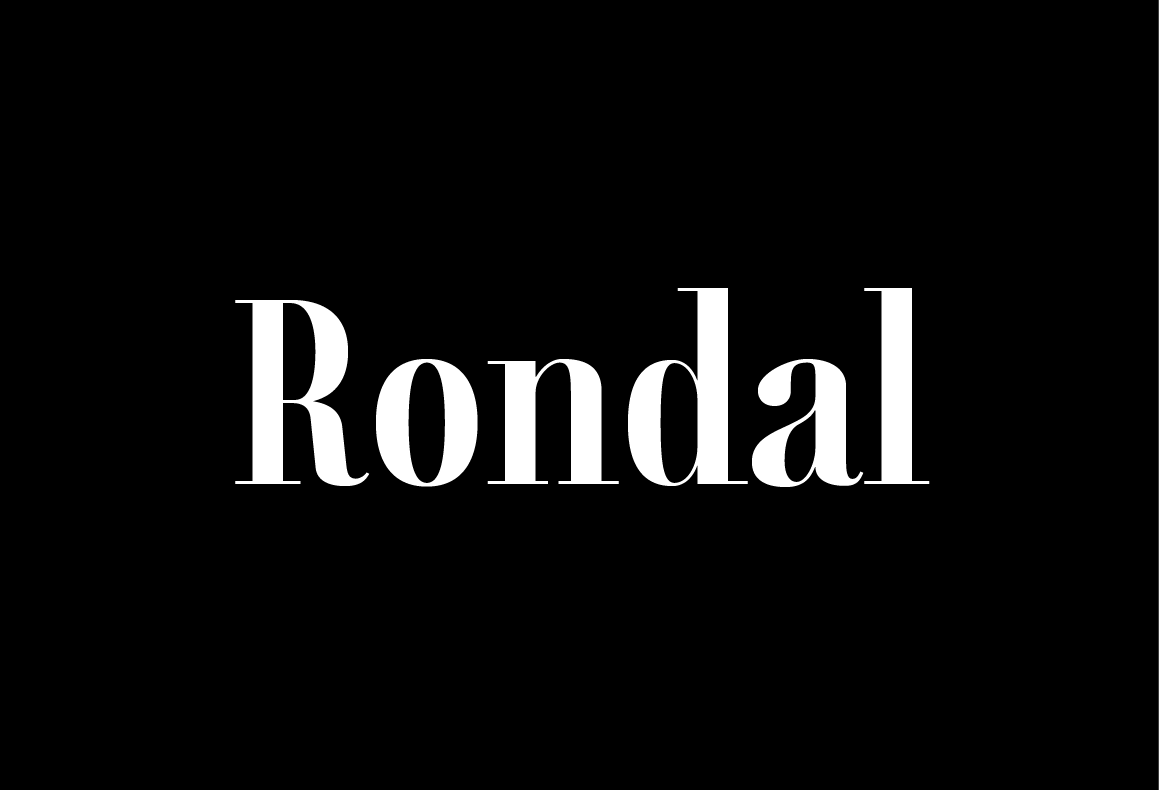
Rondal Modern Serif Font Family
Rondal Modern Serif Font Family is a contemporary serif typeface with characteristic and defined features. This font was inspired by the idea of mixing different types of terminals in order to give the font a singular appearance.
Rondal Font works in modern digital interfaces on mobile and web platforms also suitable in humanist serif touch for prints and any design projects. This font is free for PERSONAL AND COMMERCIAL USE.